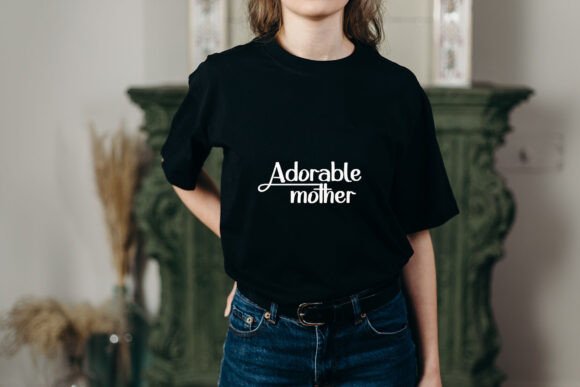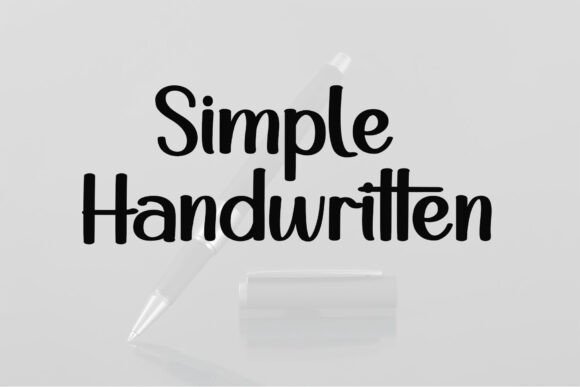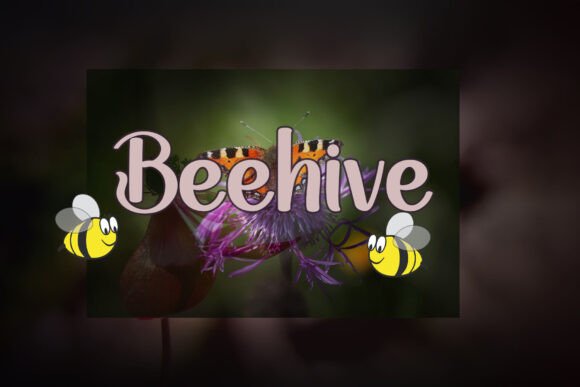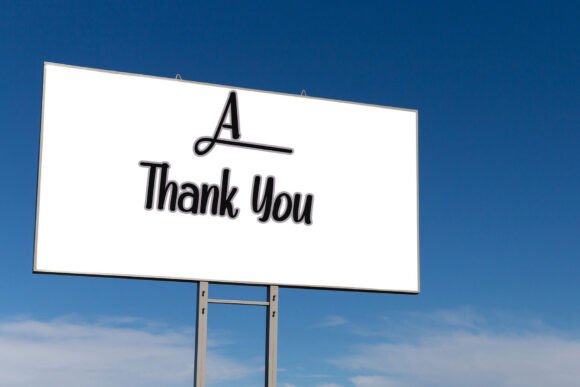
Unlock the Magic of Handwritten Design
Have you ever sat at your desk, staring at a blank page, waiting for the perfect idea to strike? The blank slate can be intimidating, but sometimes all it takes is the right tool to spark creativity. For designers, the quest for the perfect font can be a make-or-break moment. That’s where the Autography Font comes in – a delicate, elegant, and flowing handwritten font that brings designs to life.
With its beautiful and well-balanced characters, the Autography Font is the perfect addition to any creative project. Whether you’re designing a wedding invitation, a book cover, or a social media campaign, this font is sure to elevate your ideas and make them stand out. Its versatility makes it a valuable asset for designers who want to add a touch of personality to their work.
Autography Font Key Features
- Unique Characteristics: Distinctive handwritten style with natural flourishes and subtle variations in line width, giving it a personal and expressive feel.
- Kerning and Ligatures: Includes advanced kerning and ligature features to ensure smooth text rendering and a polished appearance.
Review of Autography Font
As a designer, I was excited to dive into Autography Font and see what it had to offer. Overall, I found it to be a solid choice for a variety of projects, but with some limitations.
- ✨ Elegant and modern feel: Autography Font has a sophisticated aesthetic that makes it perfect for high-end branding and luxury products.
- ✨ Versatility: This font is suitable for both print and digital applications, making it a great choice for businesses looking for a consistent visual identity.
- ✨ Wide language support: Autography Font supports a wide range of languages, making it accessible to designers working with global clients.
- ⚠️ Limited character set: While Autography Font supports a wide range of languages, its character set is not exhaustive, which may limit its use in certain contexts.
- ⚠️ Not ideal for body text: Autography Font is best used for headings and titles, as its font size and line height may not be suitable for large blocks of body text.
Overall Impression:
Autography Font is a great choice for designers looking for a modern and elegant font to add some sophistication to their projects. However, its limitations should be taken into consideration, especially when working with languages or body text.
Tips for Getting the Most Out of Autography Font
1. Experiment with different font sizes and styles to achieve the desired effect.
2. Use Autography Font in combination with other fonts to create a unique visual identity.
3. Apply Autography Font to text elements such as headings, titles, and body text for a cohesive look.
Autography Font is ideal for:
1. Creative projects such as graphics, posters, and flyers.
2. Branding and identity design.
3. Editorial and publishing projects.
Alternatives to Autography Font for Designers
1. Carolyna Pro
Carolyna Pro is a modern script font designed by Carolyna Gonzalez. It’s ideal for use in logos, branding, and other creative projects where a touch of elegance is required. Compared to Autography Font, Carolyna Pro has a more refined and sophisticated look, making it perfect for high-end designs.
Great Vibes is a beautiful, handwritten script font designed by Javier Lopez. It’s perfect for use in invitations, greeting cards, and other projects where a friendly and approachable tone is desired. Unlike Autography Font, Great Vibes has a more casual and relaxed feel, making it ideal for informal designs.
Alex Brush is a elegant, handwritten script font designed by Lauren Stewart. It’s ideal for use in logos, branding, and other creative projects where a touch of sophistication is required. Compared to Autography Font, Alex Brush has a more refined and polished look, making it perfect for luxury brands and high-end designs.